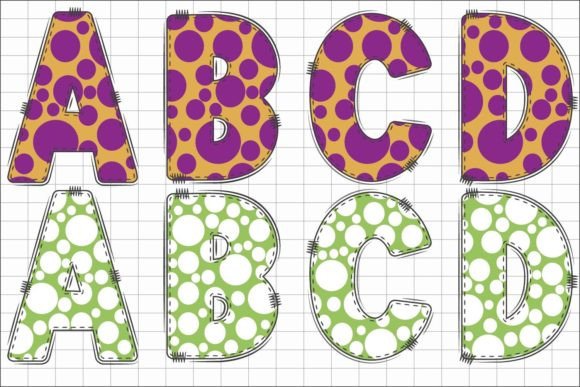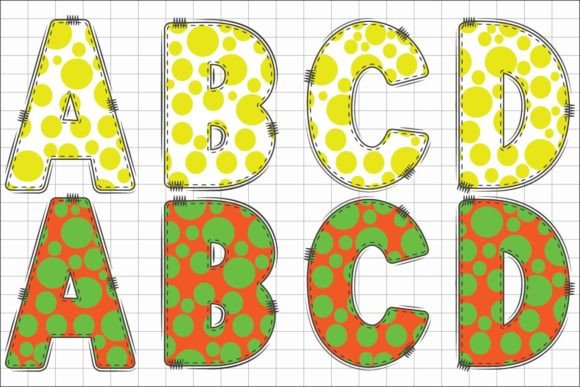
Introduction to Halloween Point Font
Do you remember the thrill of choosing the perfect costume for a Halloween party, or the excitement of decorating your home with spider webs and jack-o-lanterns? As a designer, you know that the right font can elevate any creative project, and for Halloween-themed designs, the Halloween Point Font is a game-changer.
This free download is a set of 4 colored font styles that are perfect for adding a touch of magic to your designs. With its transparent background, you can easily combine it with other design elements to create a cohesive look. Whether you’re working on a commercial project or a personal creative endeavor, the Halloween Point Font is a valuable design resource that will help you create high-quality designs that stand out from the crowd.
From spooky invitations to creative typography, the Halloween Point Font is a must-have for any designer looking to add some seasonal flair to their work. So why not give it a try and see how it can help you create some truly unforgettable designs this Halloween season?
Key Features of Halloween Point Font
- High-quality design for creative projects and Halloween-themed artwork
- Transparent background, allowing for seamless integration into various design elements
- Unique, point-style design for a distinctive and eye-catching visual effect
- Perfect design resource for designers, artists, and crafters working on Halloween-themed projects
Honest Review: Halloween Point Font
I recently stumbled upon the Halloween Point Font, a free download that caught my attention for its spooky vibe. As a designer, I appreciate fonts that add a unique touch to creative projects. In this review, I’ll share my honest thoughts on this font’s strengths and weaknesses.
- ✨ The font’s high quality is evident in its crisp, clear lines and bold, eye-catching characters.
- ✨ The transparent background makes it easy to use on various design elements without compromising visual integrity.
- ✨ The font’s versatility lends itself well to various creative projects, from spooky invitations to haunted house decorations.
- ⚠️ The font’s limited character set may not be suitable for extensive text-based projects.
- ⚠️ The font’s bold style can be overwhelming if not balanced with other design elements.
Overall, the Halloween Point Font is a great addition to any designer’s toolkit, especially for those working on spooky-themed projects. Its unique style and high quality make it a valuable design resource. However, its limitations should be kept in mind when using it for more extensive or complex projects.
Halloween Point Font
To get the most out of the Halloween Point Font, experiment with different font sizes, colors, and combinations to create unique and eye-catching designs. You can also use it in conjunction with other design resources to add depth and texture to your project.
The Halloween Point Font is perfect for a variety of creative projects, including Halloween-themed invitations, party decorations, and social media graphics. Its high-quality design and transparent background make it a versatile resource for designers of all levels.